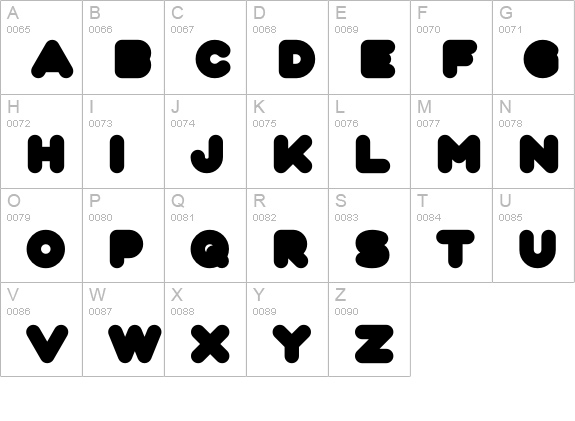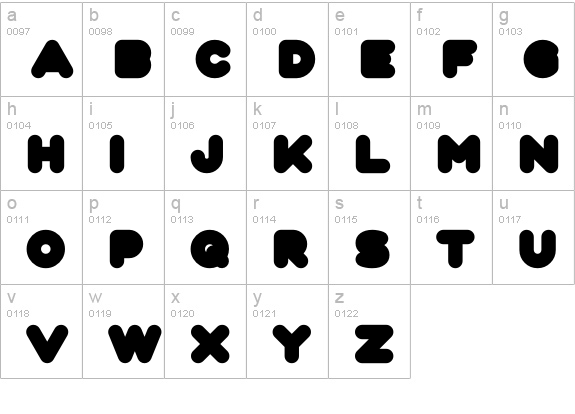
Fun City Level 5 Basic font is a playful and energetic display typeface that exudes a sense of fun and excitement. Its bold and dynamic design makes it perfect for creating eye-catching headlines, posters, and other design projects that need a touch of whimsy. The rounded edges and cheerful demeanor of this font give off a friendly and approachable vibe, making it suitable for a wide range of applications. Best of all, Fun City Level 5 Basic font is available for free download at FontsMarket.com, making it easily accessible to designers and creatives looking to add a bit of fun to their work. Whether you're working on a children's book, a party invitation, or a branding project that needs a lively touch, Fun City Level 5 Basic font is sure to bring a smile to your audience's faces. Download it today and let your creativity run wild!